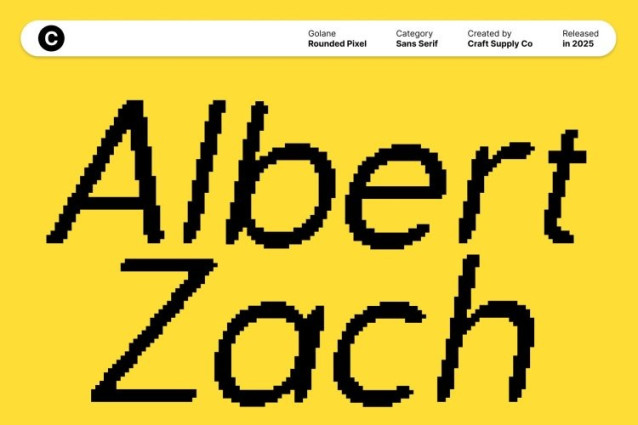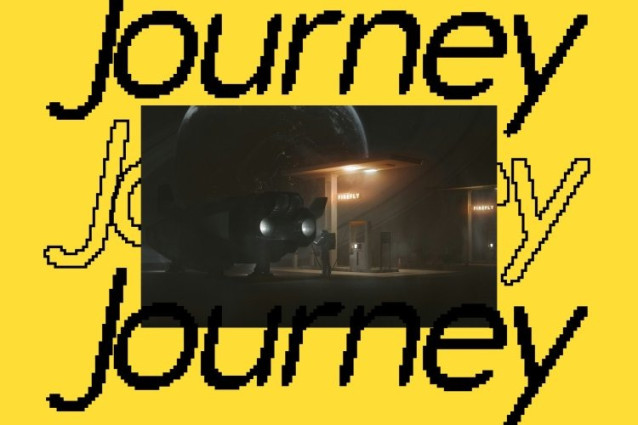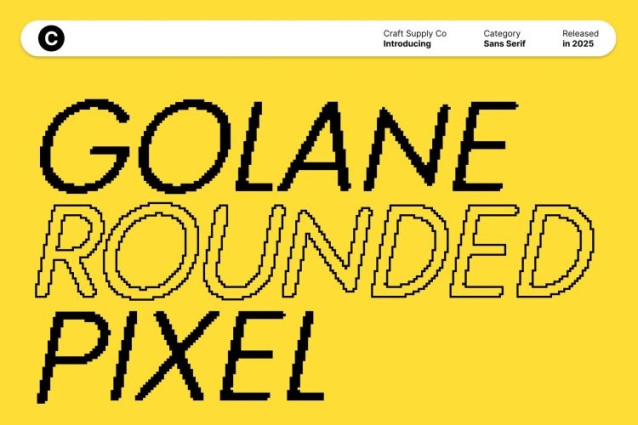
Golane Rounded Pixel Font
Golane Rounded Pixel Font is crafted with precise, clean lines that enhance readability and visual balance. Its structured forms convey professional clarity, making it ideal for designs that require a polished, contemporary, and confident typographic presence.
Pixel Texture Inspired by the 8-Bit Era
Infused with a pixel effect, the font captures the nostalgic charm of early digital aesthetics. The pixel details resemble the iconic 8-bit era of classic games and old computer systems, giving the typeface a unique retro-tech character that feels both playful and visually engaging.
Perfect for UI, Websites, and Creative Displays
This font shines in user interfaces (UI), nostalgia-themed websites, posters, infographics, and standout logo designs. Its geometric structure ensures clarity and professionalism, while the pixel styling adds personality perfect for brands or projects that want to evoke early technology with a modern twist.
Clean, Nostalgic, and Digitally Distinct
By combining sleek geometric design with vintage pixel aesthetics, this font delivers a fresh yet nostalgic look. It’s the ideal choice for creatives seeking a typeface that is modern, expressive, and rooted in the classic spirit of early digital culture.